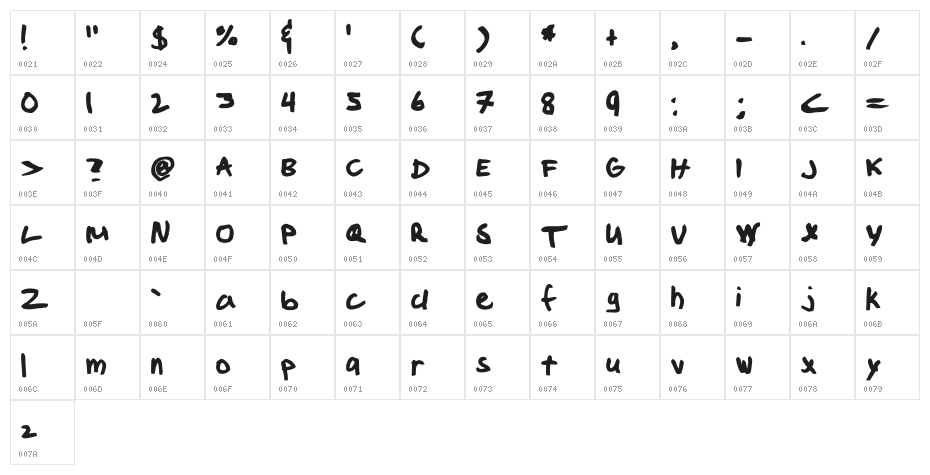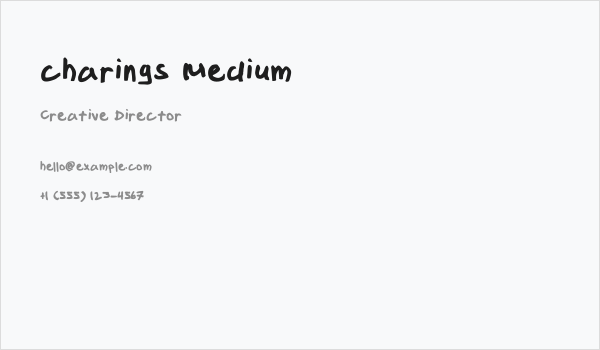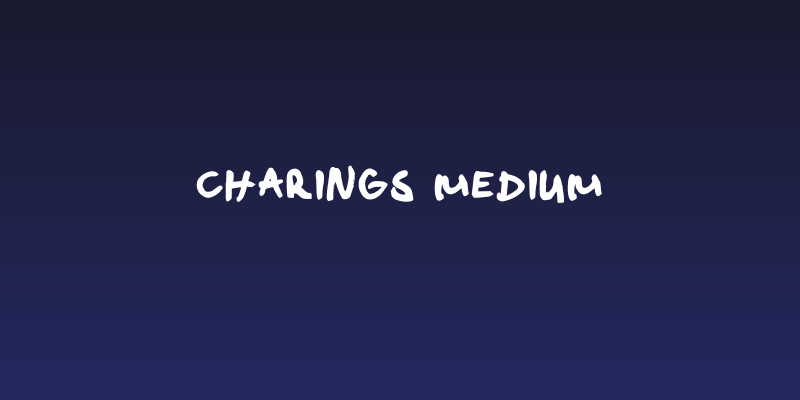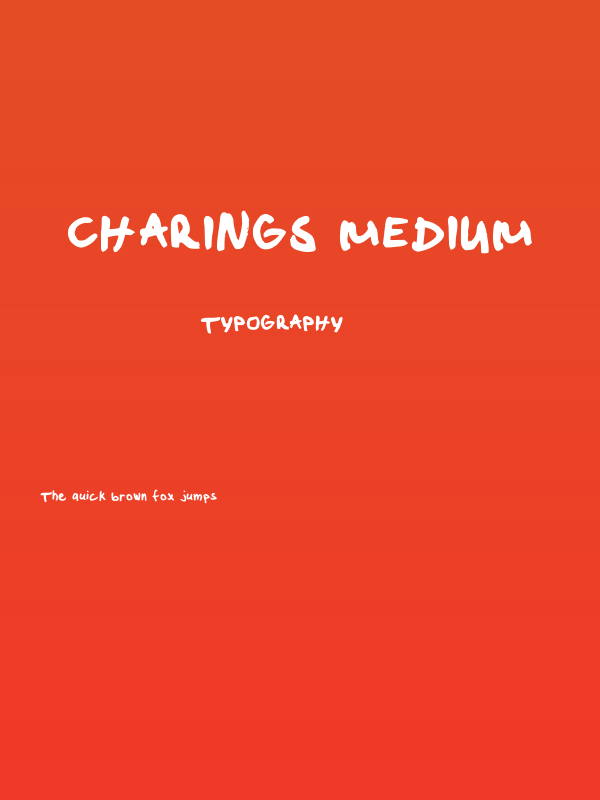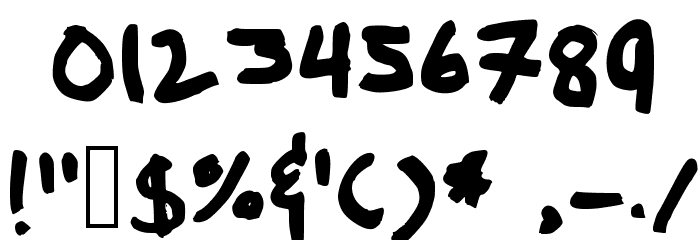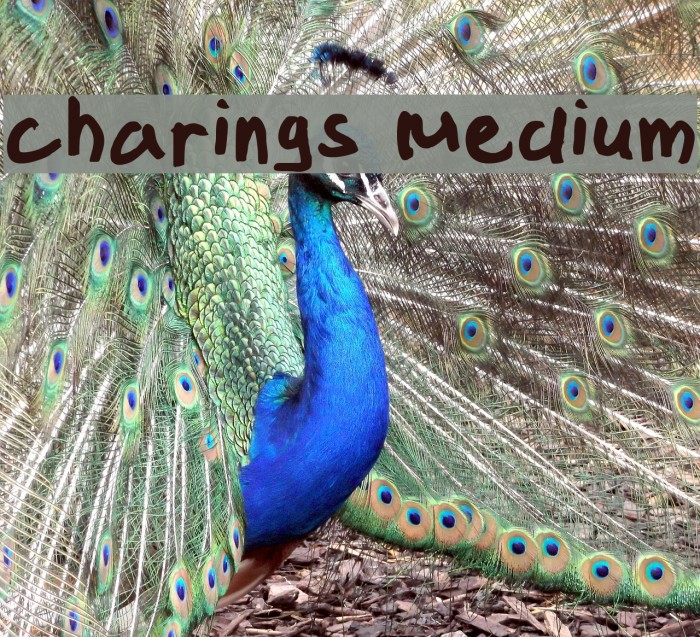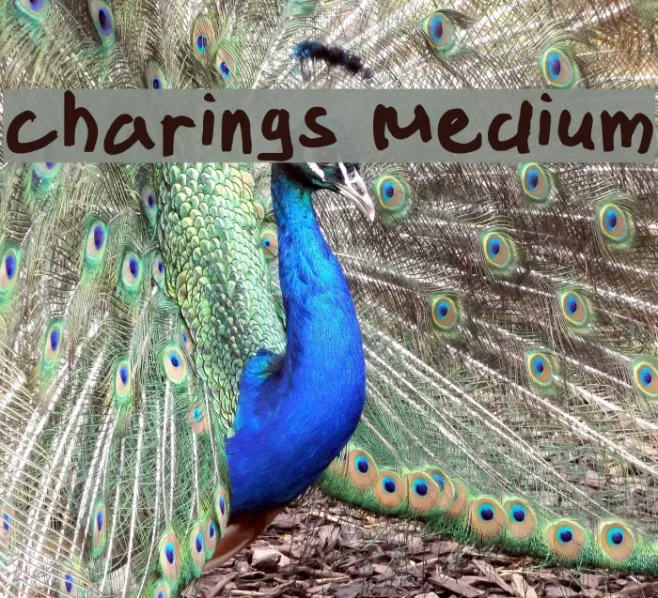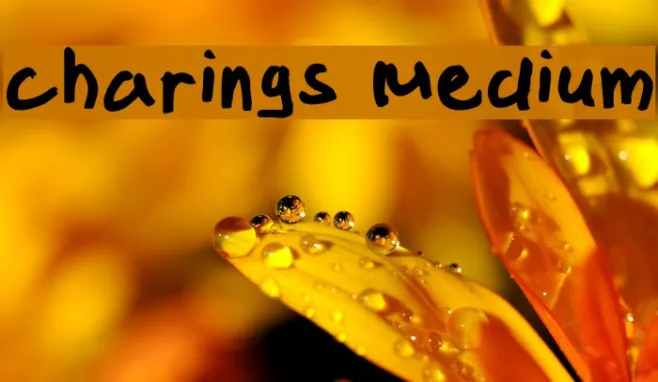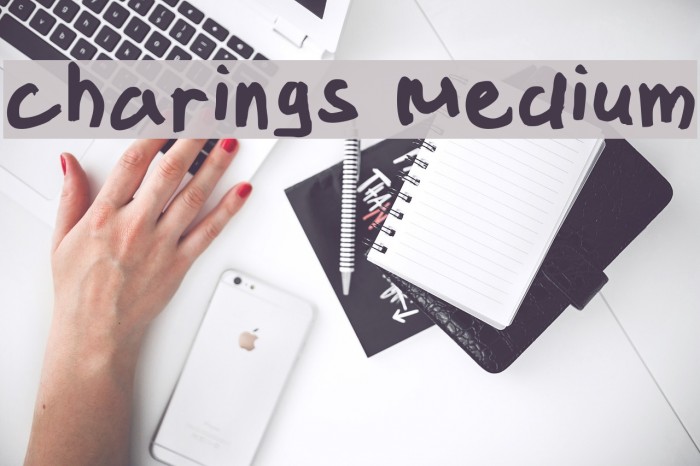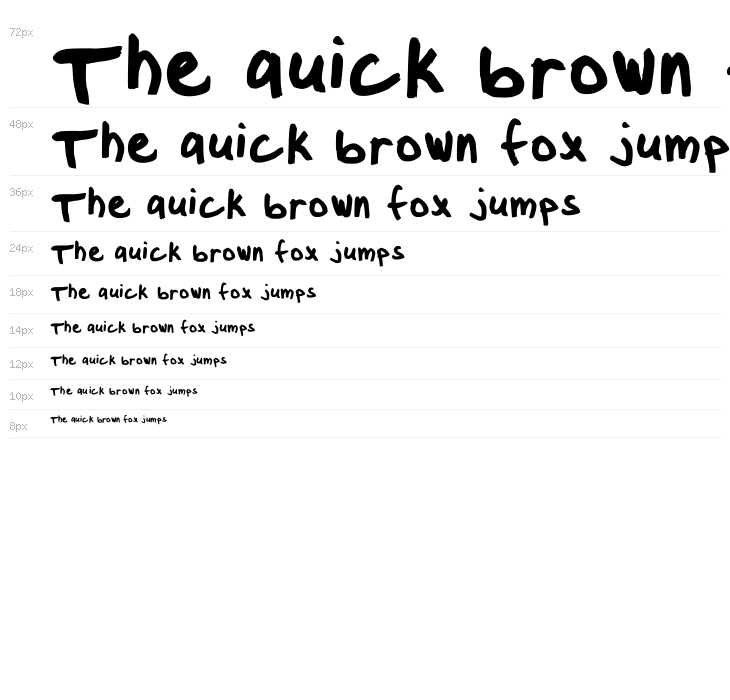
charings Medium Font
charings Medium Description
This font exhibits a playful and casual handwritten style, characterized by its bold and slightly irregular strokes. The letters have a dynamic flow, with rounded edges and a sense of movement that adds a lively touch. The uppercase and lowercase letters maintain a consistent style, while the numbers and special characters integrate seamlessly, enhancing the font's versatility. Its informal appearance makes it suitable for projects that require a personal and approachable feel. The font's boldness ensures readability, while its unique style captures attention.
| Proposed Projects | Ideal for greeting cards, children's books, casual branding, and social media graphics. |